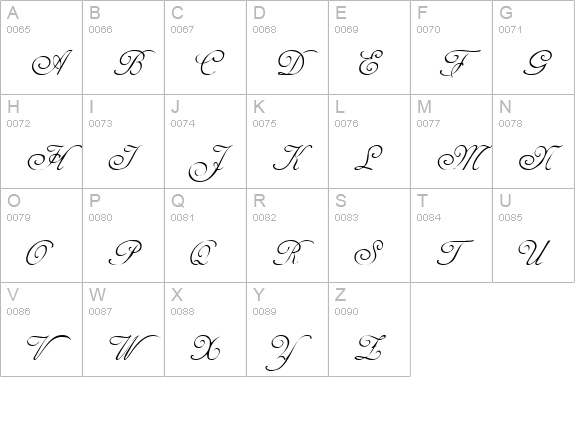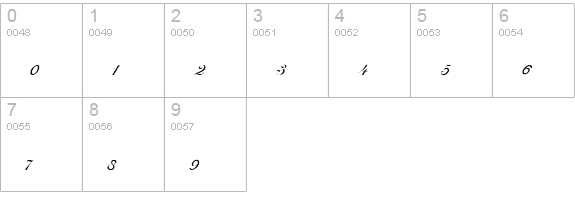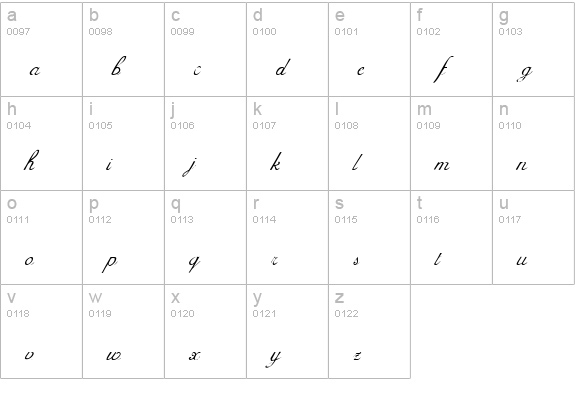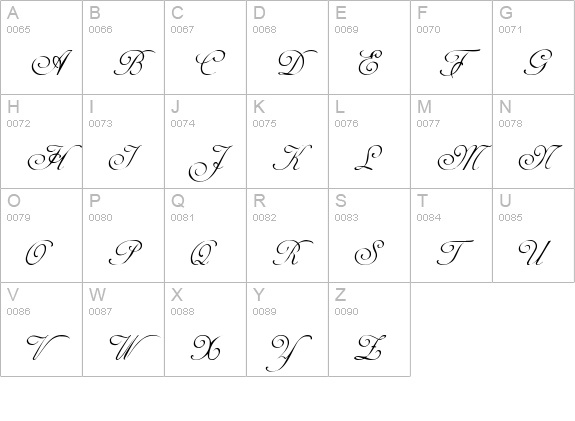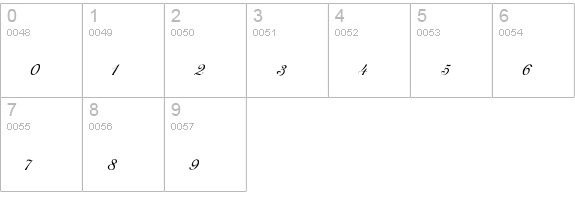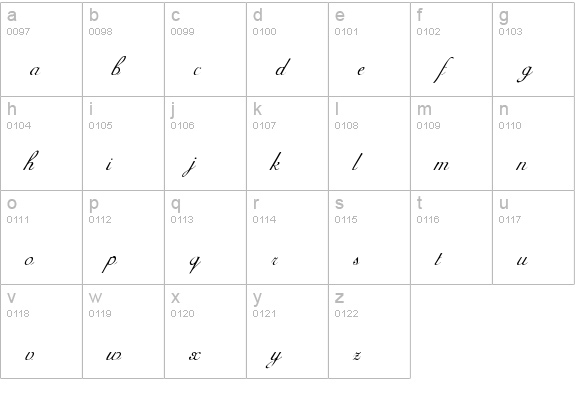
Morelle Font Details
Introducing Morelle font, a stunning and elegant typeface perfect for adding a touch of sophistication to your designs. With its graceful curves and sleek lines, Morelle exudes class and refinement. This versatile font is ideal for a wide range of projects, from branding to invitations to packaging. What sets Morelle font apart is not only its timeless beauty but also the fact that it is completely free to download. That's right, you can access this exquisite font at no cost on FontsMarket.com. So why wait? Elevate your designs with Morelle font today and make a lasting impression.